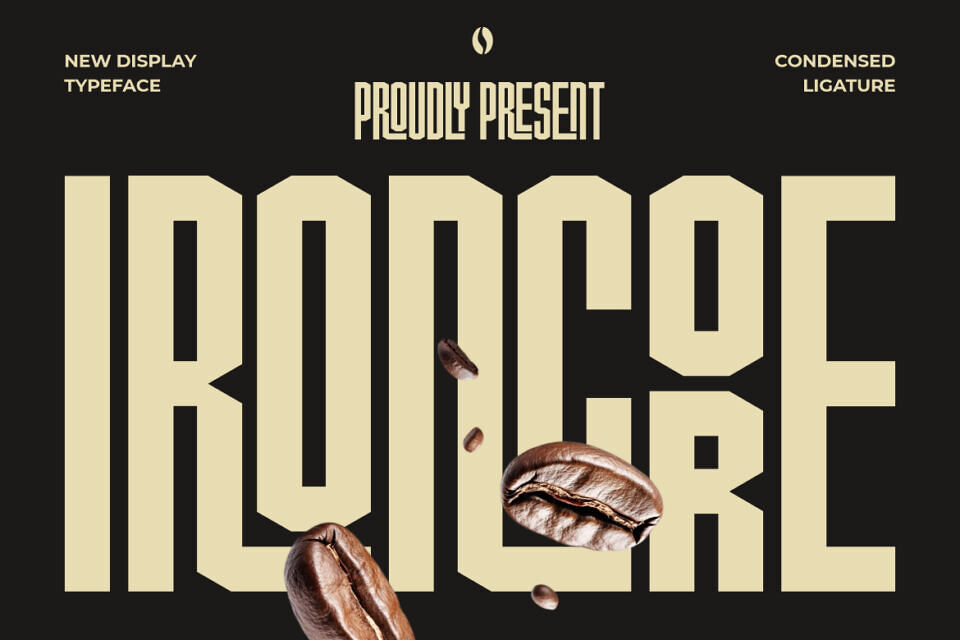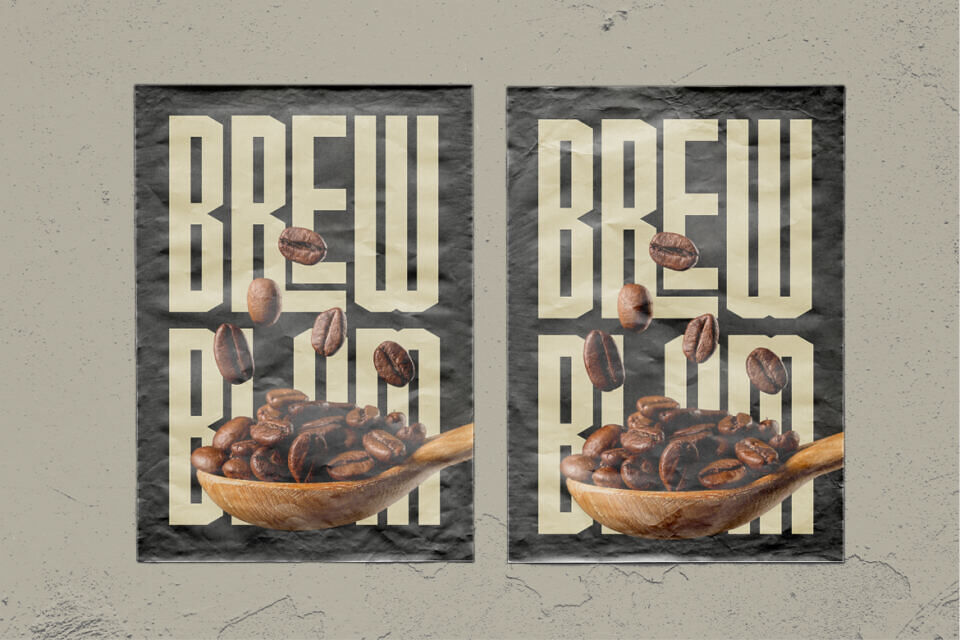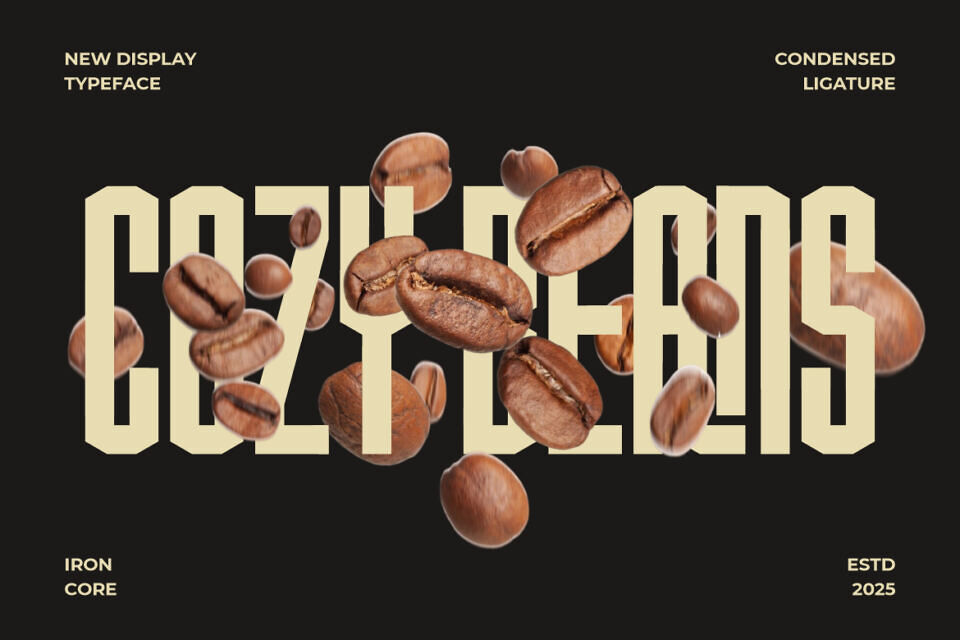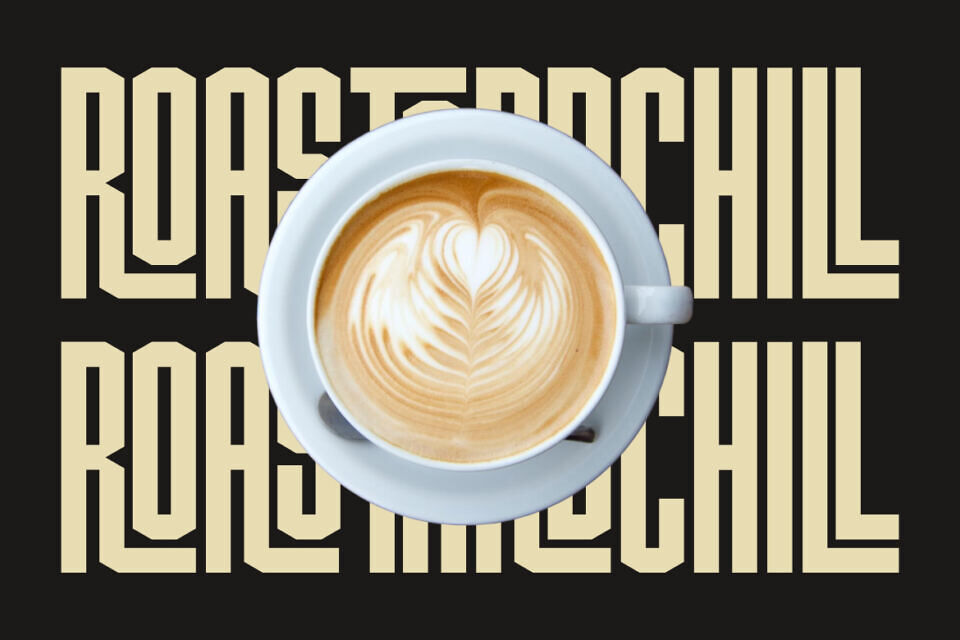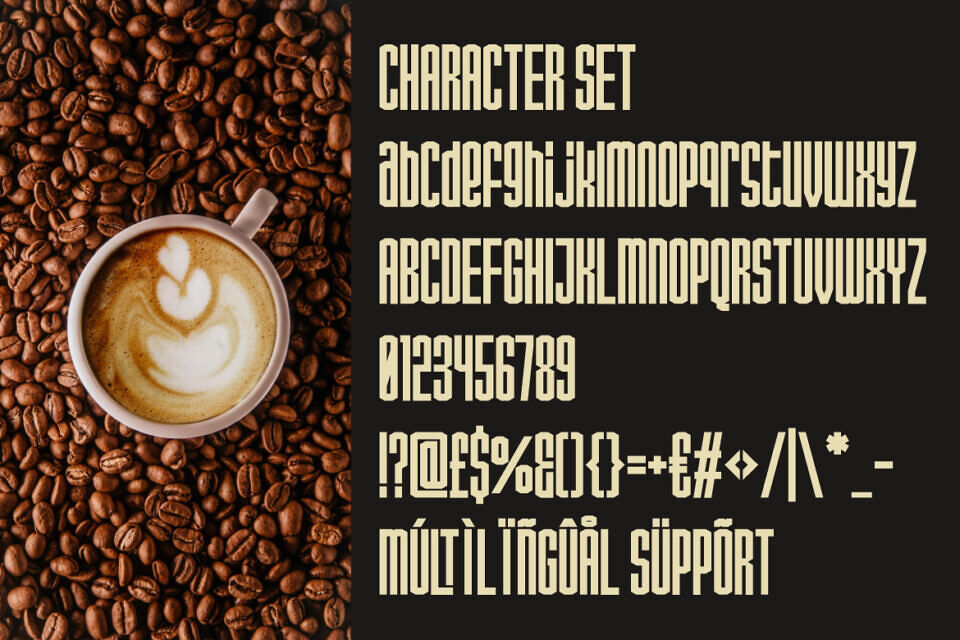
Ironcore Font
Ironcore Condensed Ligature Font delivers an industrial edge with a refined modern twist. This typeface features tall, compact letterforms with bold geometric precision, creating an assertive and confident visual statement. Each character is built with tight vertical proportions and minimal spacing, producing a condensed aesthetic that maximizes visual impact while conserving space.
The sharp edges and squared corners emphasize strength and durability, while the clean alignment of ligatures adds sophistication and rhythm to the overall composition. Designed for visibility and bold presence, Ironcore Condensed Ligature Font merges modern urban style with classic industrial confidence.
Ideal for logos, coffee packaging, posters, and business branding, this font injects power into every visual layout. Its condensed style fits perfectly for editorial headlines, product labels, and cafe branding where space and impact matter most.